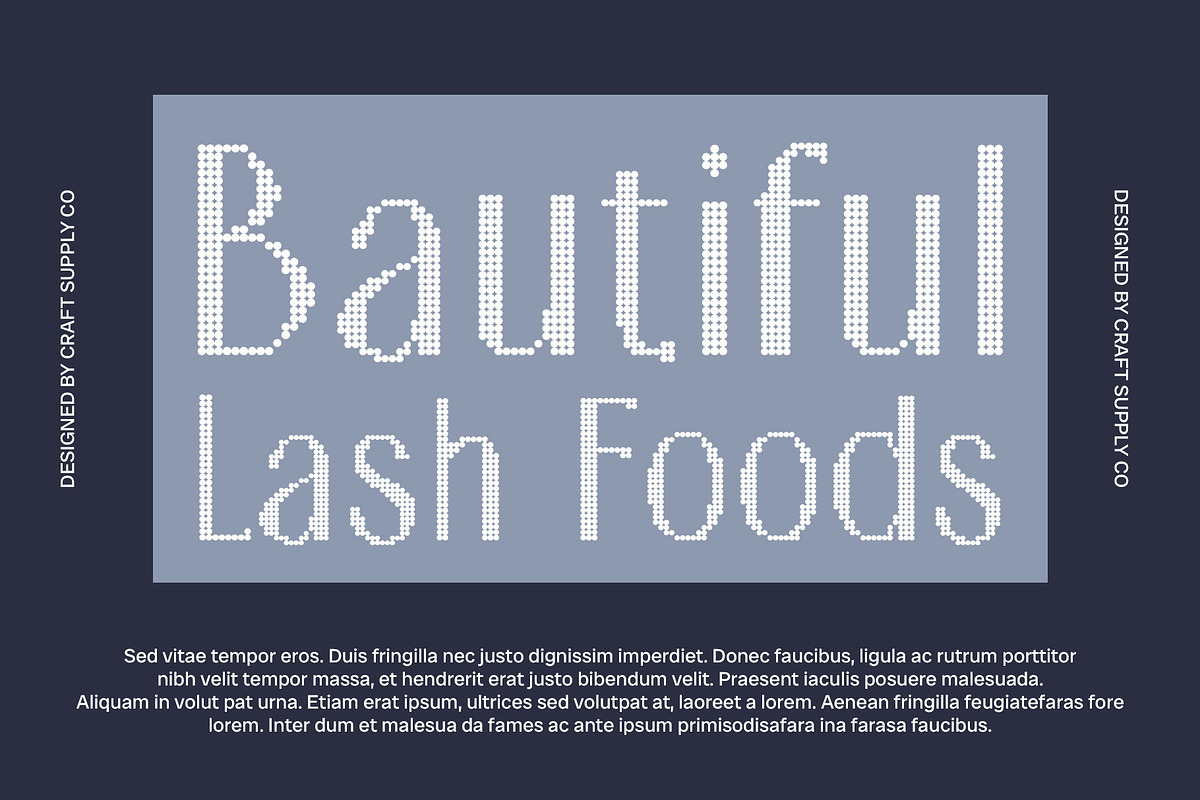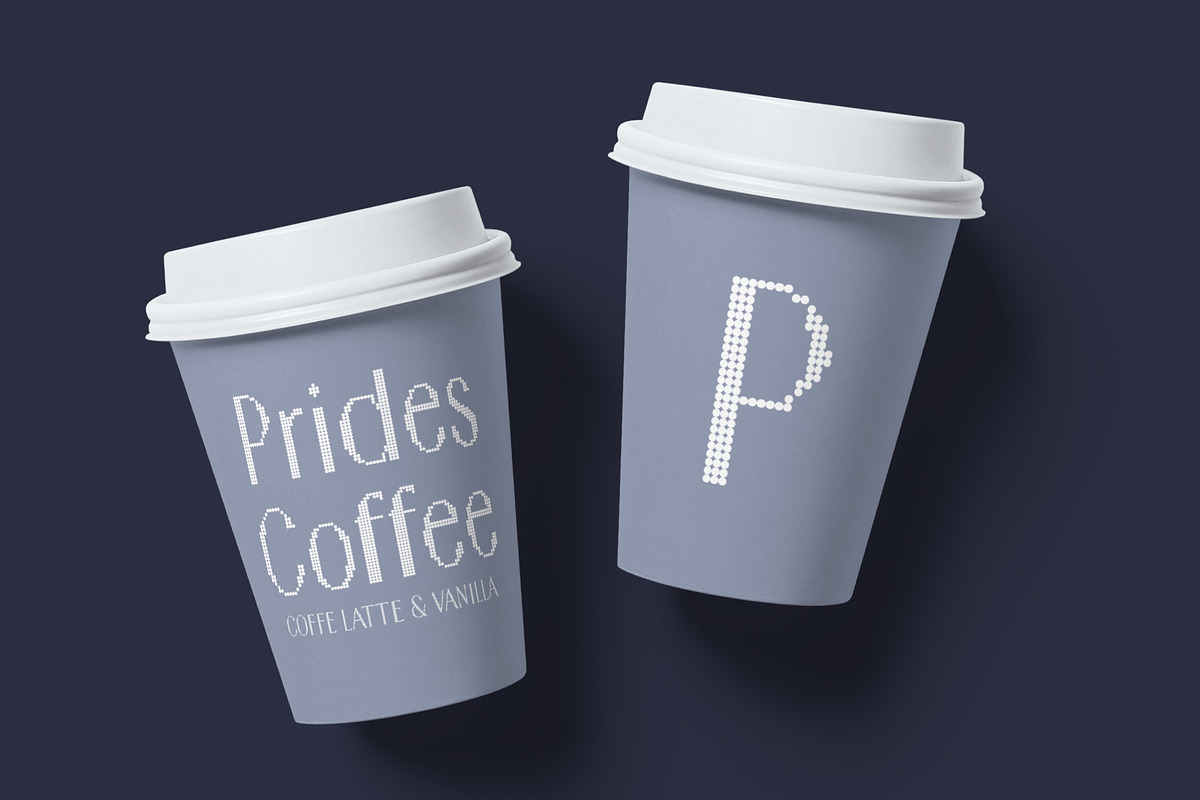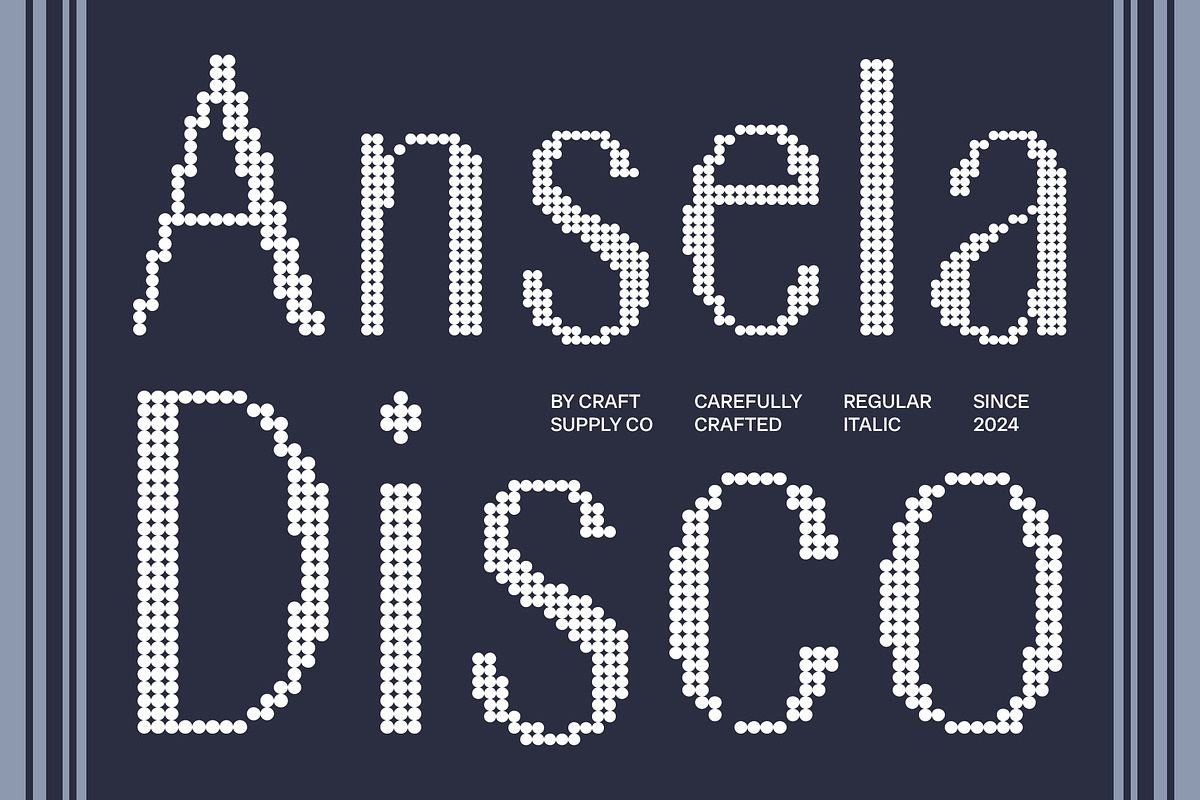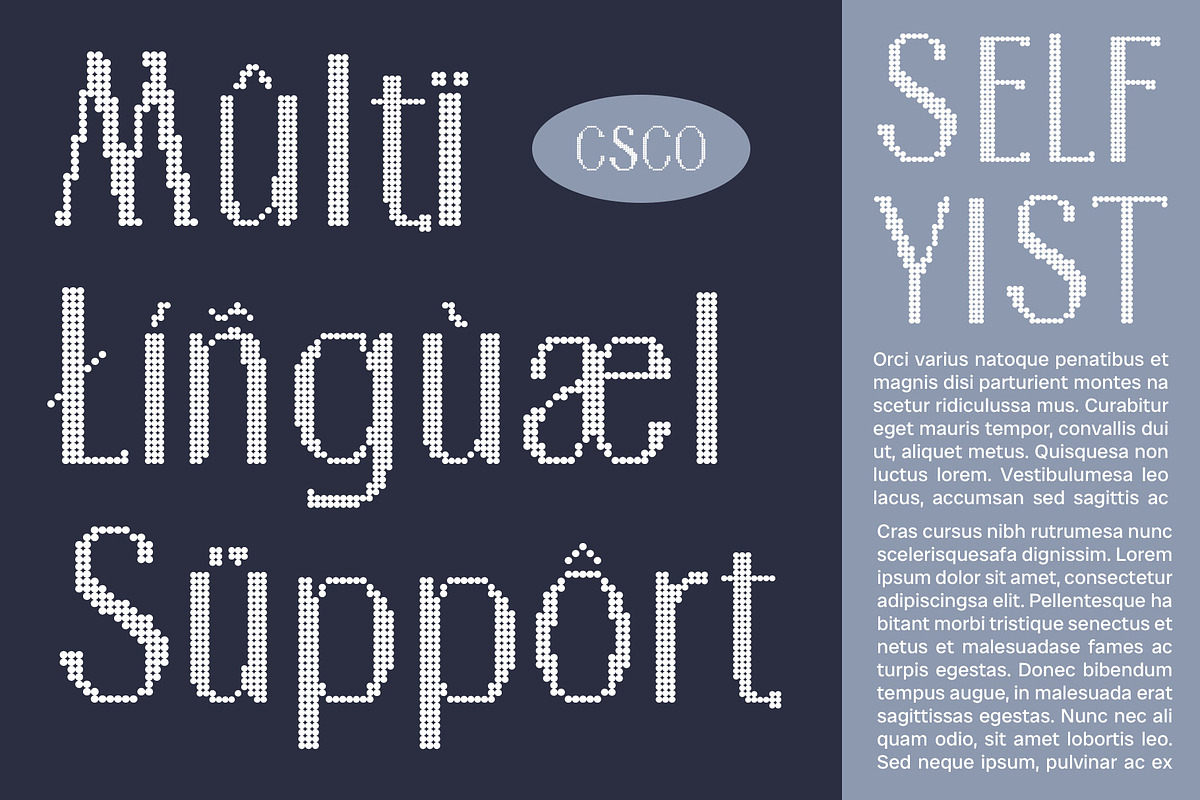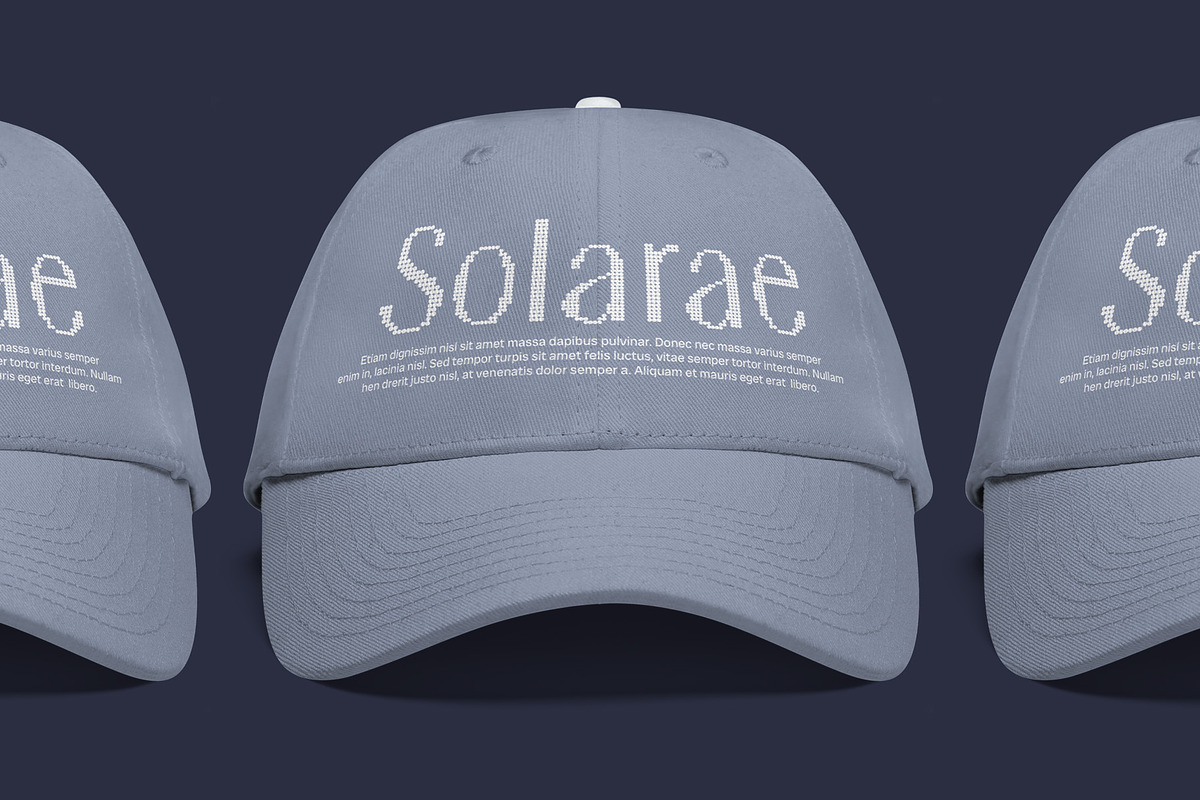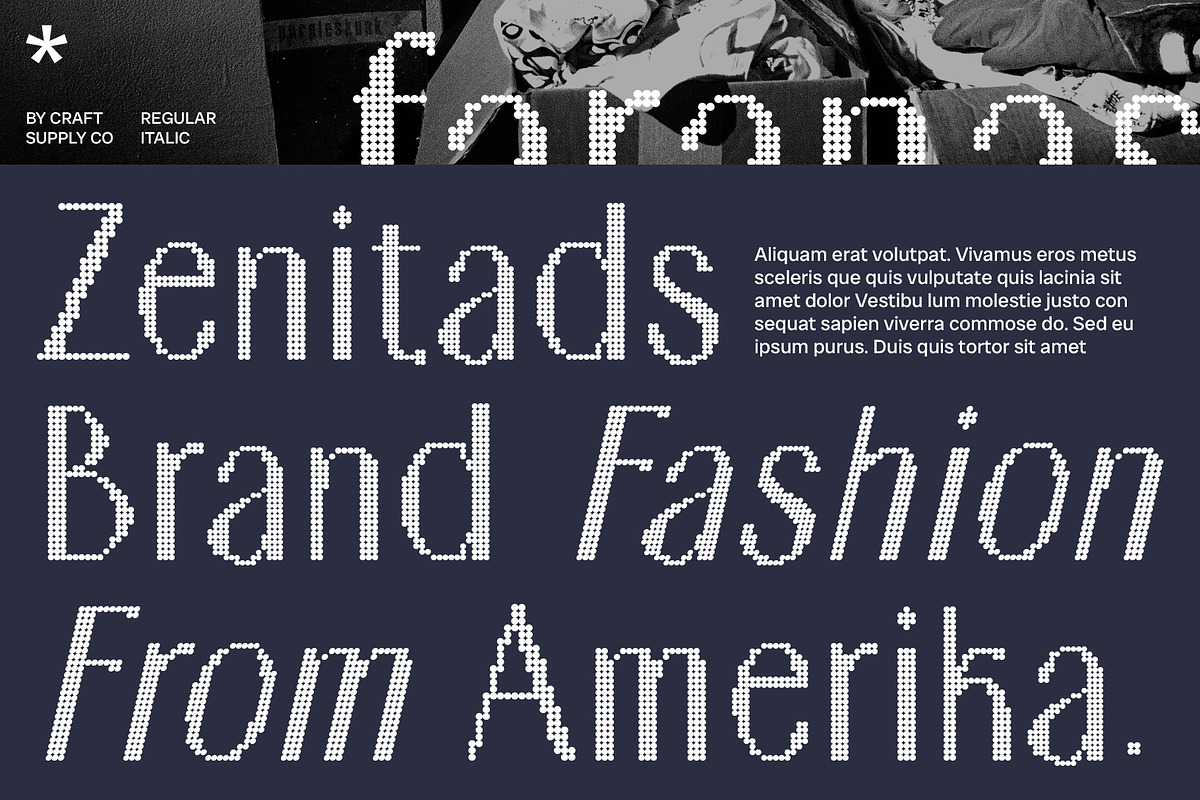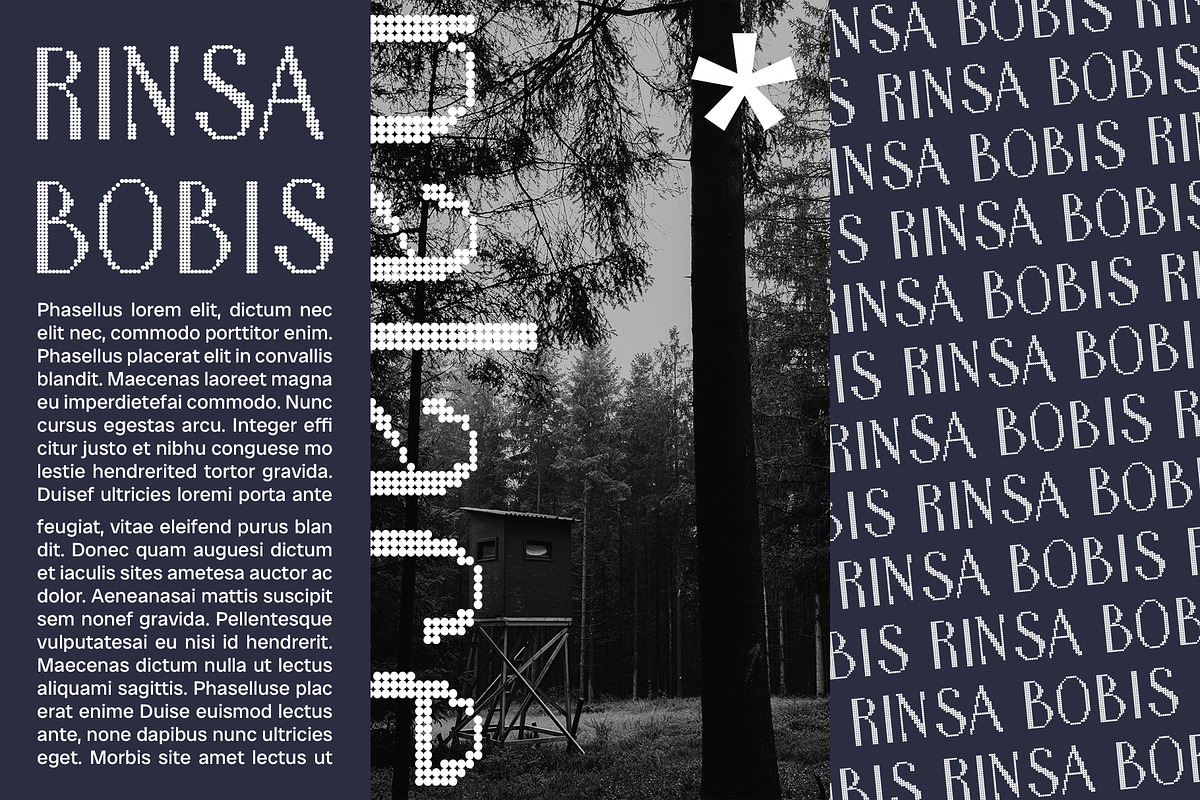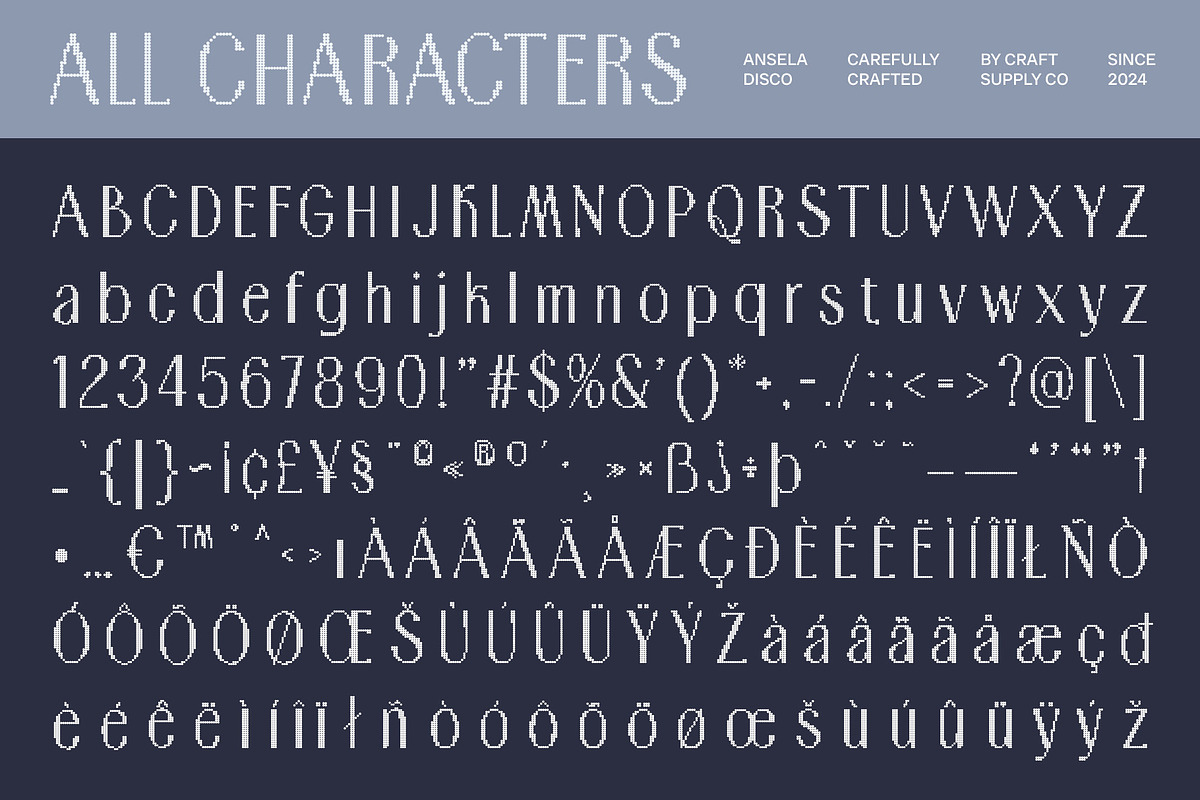
Ansela Disco
Ansela Disco Font – Sleek Sans Serif with Glamorous Flair
Modern Sans Serif with a Condensed Form Ansela Disco is a contemporary sans-serif font featuring a condensed form that offers a sleek and efficient design. Its slimmer, more compact letter shapes provide a sophisticated and professional appearance, perfect for achieving an elegant look in various design contexts.
Disco Effect for Vibrant and Energetic Vibes The disco effect introduces sparkling, colorful elements that infuse the font with a dynamic and cheerful energy. This vibrant touch adds a layer of glamour and festivity, making Ansela Disco ideal for designs that require a blend of sophistication and exuberance.
Balancing Elegance with a Touch of Glamour Combining sleek elegance with a spirited disco effect, Ansela Disco achieves a unique balance between modern sophistication and lively glamour. The result is a font that stands out with both refined grace and vibrant personality.
Perfect for Events, Branding, and Promotional Materials Ansela Disco is well-suited for a variety of applications, including events, branding, and promotional materials. Its modern, elegant design with a festive touch ensures a memorable and impactful impression, making it a versatile choice for projects that aim to highlight sophistication with a hint of glamour.